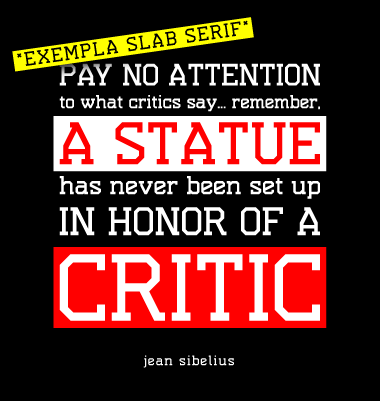
don't worry: critics are of course very welcome... just liked that quote best when i was looking for something smart for the sample.;)
No criticizing from me. It's great! And so complete...328 characters, wow!
Just a thought: the use of serifs seems to be inconsistent. Sometimes there is just half a serif, and sometimes a whole one. Compare h, k, and m, n.
yep, you're right...wow, pretty attentive!:) to be honest i thought it was really difficult to decide whether to make half a serif or a full one, and so i decided from character to character if it looked better that way or the other and kind of forgot the cosistency. thanks for the comment, i'll go through it as soon as possible!
(or as soon as i'm motivated to compromise on single character style for the greater good:P)
edit: they're "uniformed" now, no more law breakers...
Nice and thorough work. The text it produces is even, pleasant to read. Kudos for the extended European set.
Exemplary - both in form and content.
To follow up on Frodo's comment about the cedillas ... those on the K, k, N, n and R are not connected. What do you think about connecting them, as you have done with the ogonek on A and a?
To follow up on my follow up ... I thought I ought to check out what I had suggested. I now realise that ogoneks are supposed to be on the right hand side of a glyph. Not sure whether a cedila can be moved to the side.
I guess I need to learn a fair bit more about diacritics. Which of course makes me a ....... dire critic!
An excellent FontStruction, shasta... And you deserve extra points for such an extended character set!
The resurrection of this one perfectly illustrates one of the very nice side effects of the live feed. I had already thought it forgotten and lost and down the river with all the not-top-picked and averagely rated fontstructions... And now that someone somehow stumbles upon it and comments on it (thanks, Frodo7!) it gets it's second shot in the live feed. I'm particularly happy that it's this one, cause I think its one of my best fontstructions. :)
@p2pnut: Haha, I'm afraid even dire critics on diacritics could easily top my knowledge there. Especially when it gets to characters I never use in my language portfolio, I'm just relying on the expert info preview. (I guess it should be renamed "beginner info" in my case.) And there it showed ,correctly I think, that the cedilla is in the middle of the letters, so not connected to the main body of R's, K's and so on, while the ogonek normally sticks to the letter. BTW: funny how the cedilla came into existence... Apparently it wasn't even a diacritic in the beginning. (see picture)
@Frodo7 + SquarePeg: Thanks! It took some time to make all of them, but my general experience is that the extended european sets are pretty easily done with copy/pasting, and thus extend the usability for quite low costs.
Wonderful to have this hidden gem feature on the new fontstruct homepage! It would be great to see it top-picked.